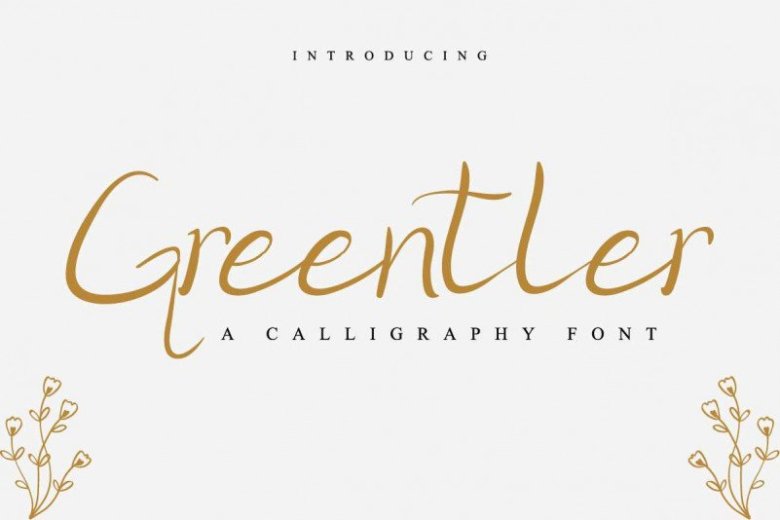
Greentler Calligraphy Font
Introducing Greentler a Calligraphy font with stylish and elegant feels. With the main style of the hand-lettering script, it will be very interesting if it is added with a variety of Alternates (Capital letters) and also Stylistic Sets that are very suitable.
Greentler is very suitable for use in various media such as; packaging, logos, labels, posters, shirt designs, wisdom quotes, bulletins, typography, and many other media.